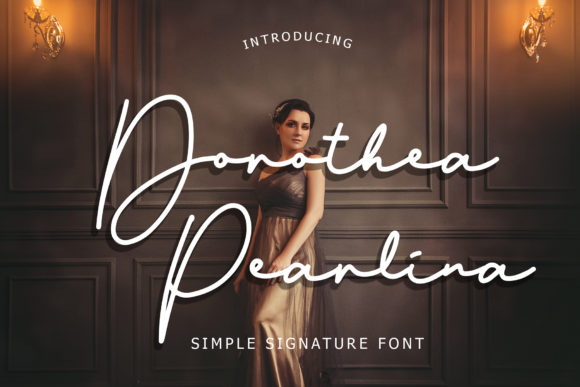
Dorothea Pearlina: A Handwritten Font for Handmade Product Design
I was sitting at my kitchen table with a fresh candle pour cooling beside me, a stack of blank kraft tags waiting for something special. I had tested three or four script fonts for the label design, but nothing captured the warm, elegant feel I wanted for this small batch of lavender soy candles. Then I opened Dorothea Pearlina in my design software, typed the word “calm,” and watched the swashes curl around the letters like a gentle breath. That moment changed how I approached every product label in my shop.
What Makes Dorothea Pearlina Stand Out for Makers
Dorothea Pearlina is a gorgeous handwritten font that brings an air of refined charm to any project. Its flowing strokes feel natural and unforced, as if traced by a skilled calligrapher with a steady hand. The font includes beautiful swashes and ligatures that link letters together seamlessly, creating a rhythm that feels both deliberate and effortless. For anyone making products by hand—whether you pour candles, print stickers, sew tote bags, or design digital printables—this typeface offers a level of polish that elevates everyday items into something memorable.
The visual personality of Dorothea Pearlina sits somewhere between classic calligraphy and modern brush lettering. It has enough structure to remain legible at smaller sizes, yet enough flourish to command attention on a greeting card or a boutique product tag. The swashes are not overpowering; they feel like natural extensions of the letterforms, which means they work beautifully on physical merchandise without looking fussy. For a handmade seller, that balance is gold.
Candle Labels That Feel Personal and Premium
When I designed those lavender candle labels, I used Dorothea Pearlina for the scent name and paired it with a clean sans serif font for the ingredient list and burn time details. The contrast was striking. The script brought warmth and a handcrafted feel, while the sans serif kept the practical information easy to read. I printed the labels on matte adhesive paper and wrapped them around amber glass jars. The swashes caught the light just enough to draw the eye without overwhelming the label. That small choice made the candles look like they belonged in a boutique, not just on a market table.
If you make candles, soaps, or bath products, try using Dorothea Pearlina for product names, scent titles, or shop branding on the front label. Keep ingredient lists and safety warnings in a simple sans serif or serif font for clarity. The contrast between the expressive script and the clean supporting type creates a professional, layered look that customers associate with quality.
Wedding Invitations and Greeting Cards With Genuine Emotion
There is something about a handwritten font that feels deeply personal, especially for occasions like weddings, anniversaries, or birthdays. Dorothea Pearlina brings that emotion to paper without requiring you to hire a calligrapher. I used it for a set of engagement party invitations, setting the couple’s names in the script with a subtle swash on the capital letters. The rest of the text—date, location, RSVP details—went in a light serif font. The result looked like a letterpress piece, but I printed it at home on a standard inkjet printer.
For greeting card makers, this font works wonderfully for short phrases like “with love,” “thank you,” or “happy birthday.” The ligatures help the words flow naturally, so you do not end up with awkward gaps between letters. If you sell printable greeting cards on Etsy or your own shop, try using Dorothea Pearlina for the main sentiment on the front and a simple handwritten font for the interior message. The recipients will feel the extra care.
Product Tags, Boutique Packaging, and Small Space Design
One of the challenges with script fonts on small items like clothing tags or jewelry cards is readability. Dorothea Pearlina handles condensed spaces surprisingly well. The letterforms remain open and clear even when scaled down to fit a two-inch tag. I tested it on round kraft tags for a line of handmade soaps, and the font held its shape without the swashes bleeding into each other. That is not something I can say for every script font I have tried.
For boutique packaging—think tissue paper inserts, ribbon tags, or small hang tags—use Dorothea Pearlina for your shop name or a single word that defines your brand. The font becomes part of the unboxing experience. When a customer opens a package and sees a beautifully scripted tag, they perceive the item as more valuable. That perception matters when you are a small shop competing with larger brands.
Printable Wall Art and Home Decor Signs